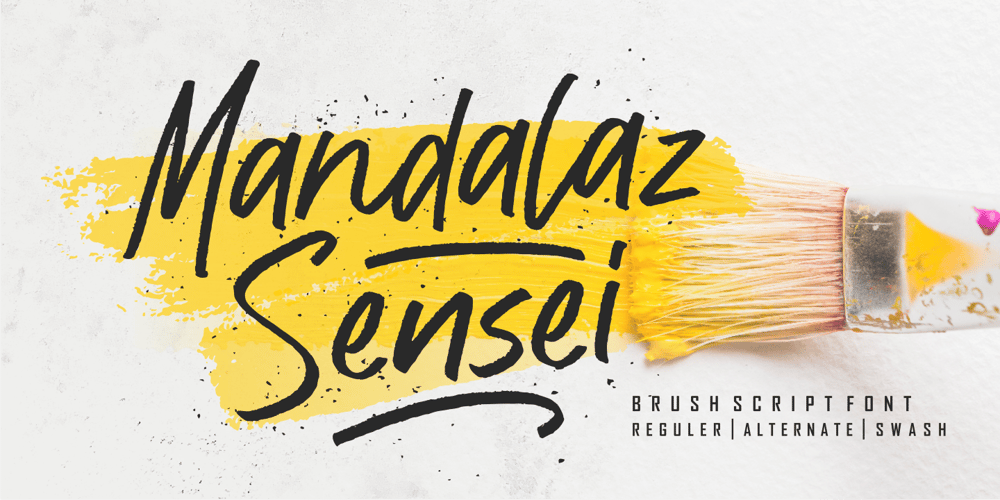
Mandalaz Sensei Font Family was designed by Fachrizal Yusuf and published by Allouse Studio. Mandalaz Sensei contains 3 styles and family package options. Mandalaz Sensei is a Brush Font Family.These font come with Multi-Lingual Support and swash separated to make it easier to play with.Mandalaz Sensei is perfect for any tittles, logo, product packaging, branding project, megazine, social media, wedding, or just used to express words above the background.Enjoy the font, feel free to comment or feedback, send me PM or email. Thank You!